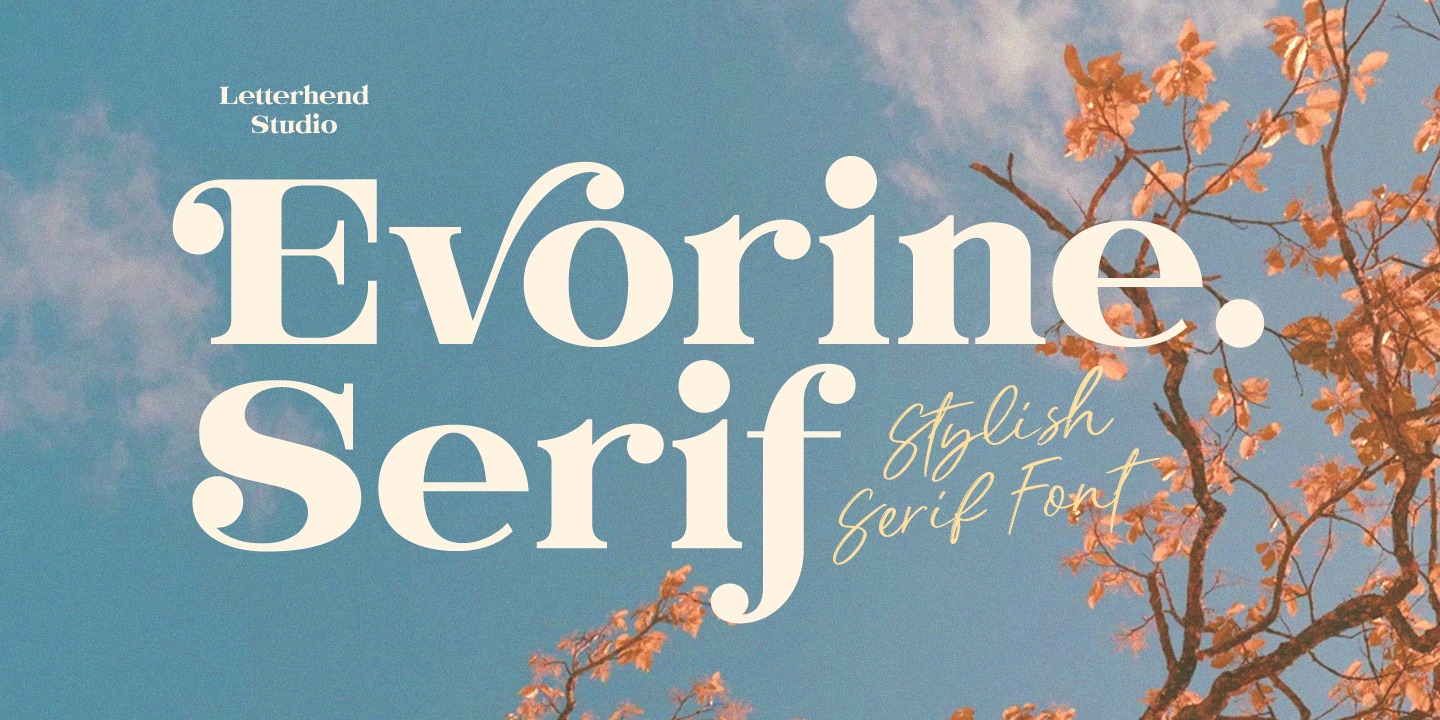
Evorine Serif – Refined Serif Font
Evorine Serif – Refined Serif Font is a flexible and reliable font created to fit multiple design needs, from branding and packaging to social media and editorial layouts. Evorine Serif is a dreamy little statement font with soft curves, bold elegance, and that effortlessly pretty look that feels like golden hour in typography form. With its high-contrast serif shapes and playful vintage charm, Evórine Serif brings a stylish mix of classy and cute — perfect for fashion branding, café menus, wedding invites, beauty packaging, editorial layouts, and aesthetic social posts.